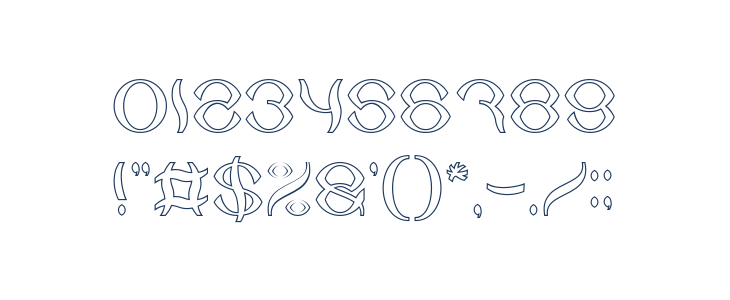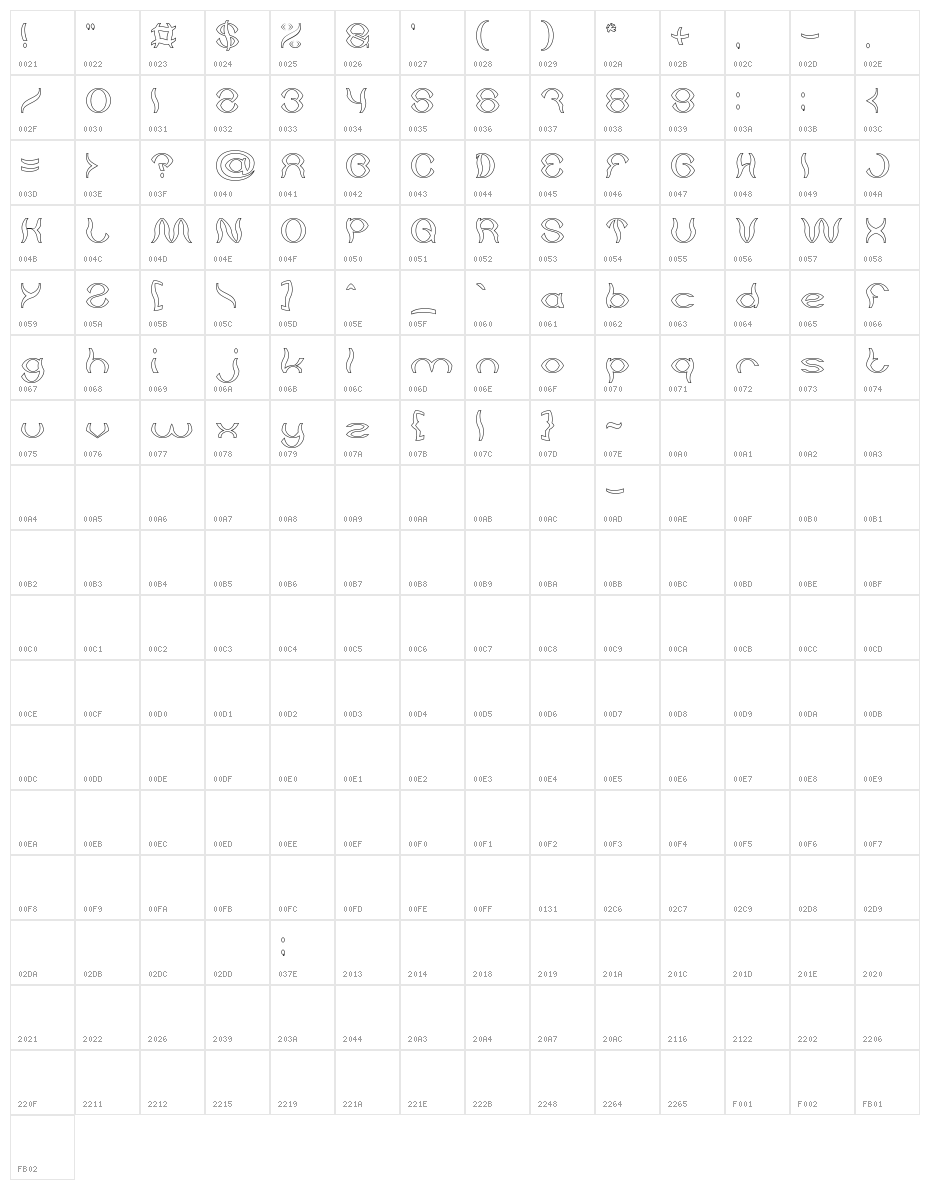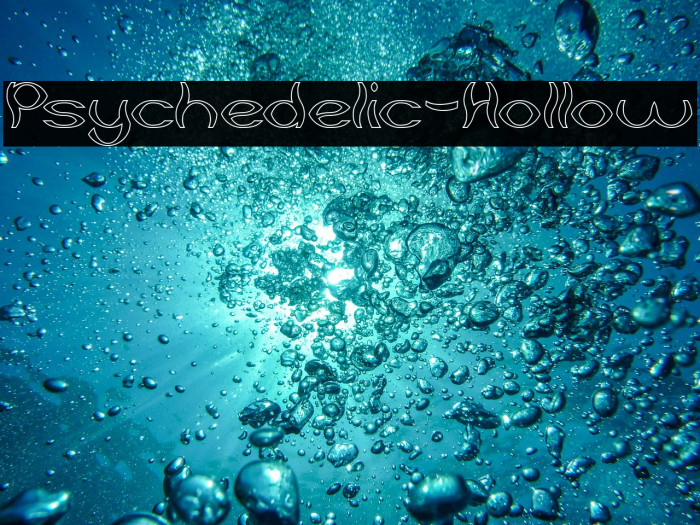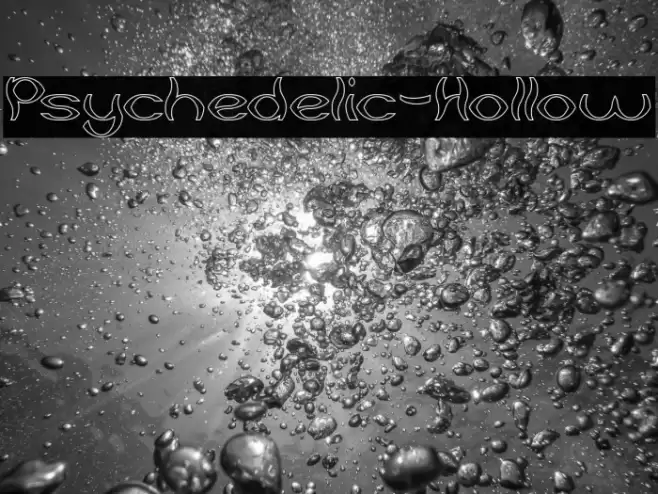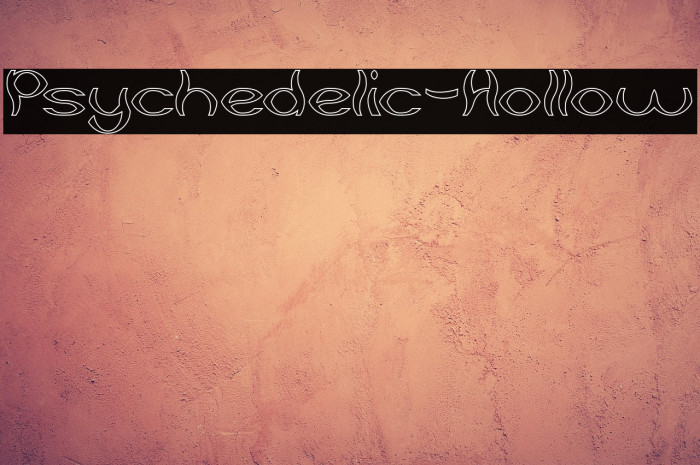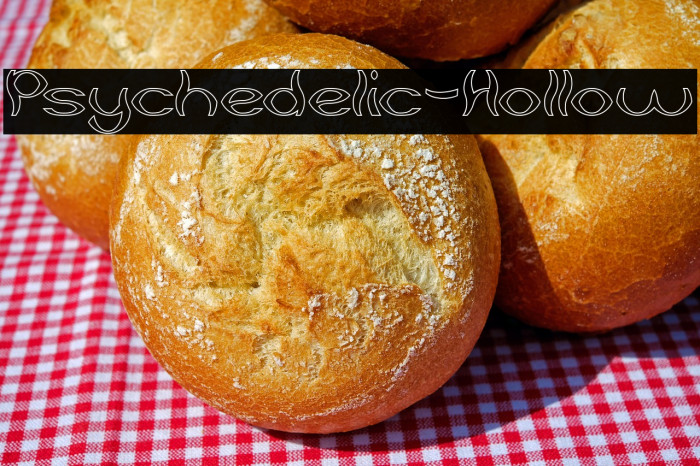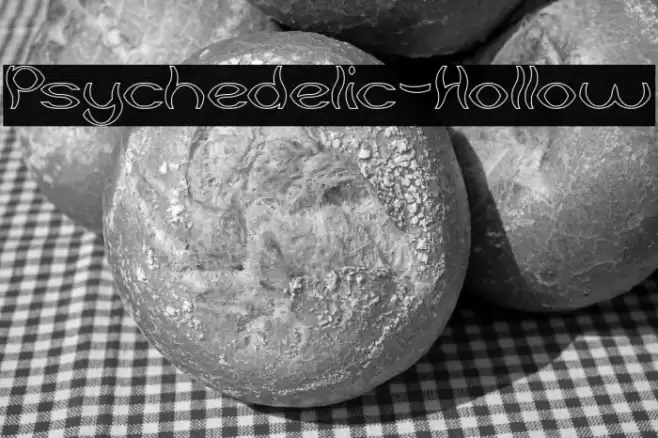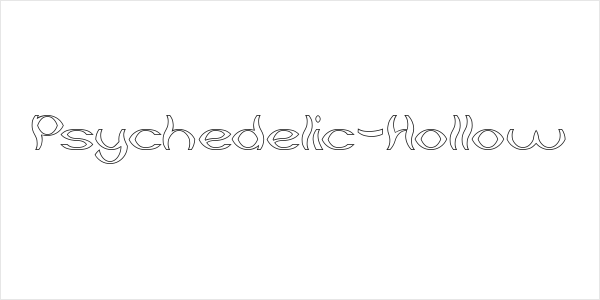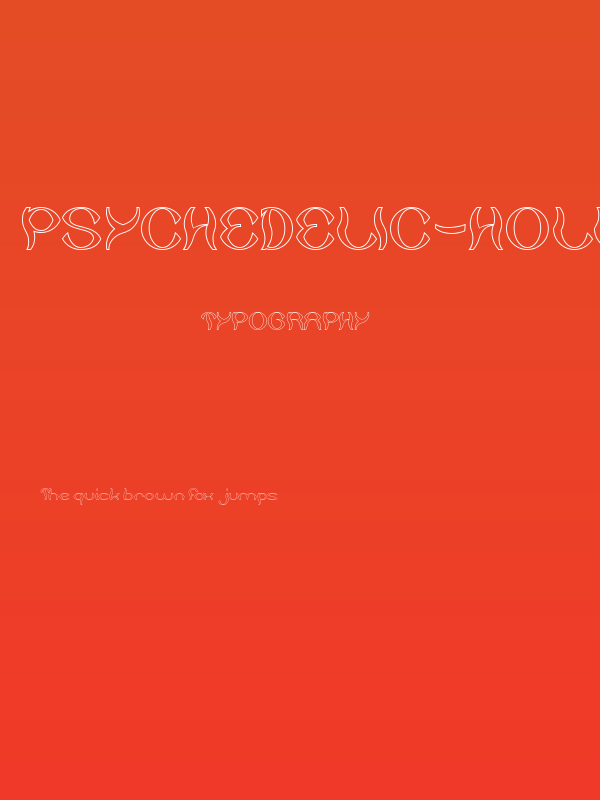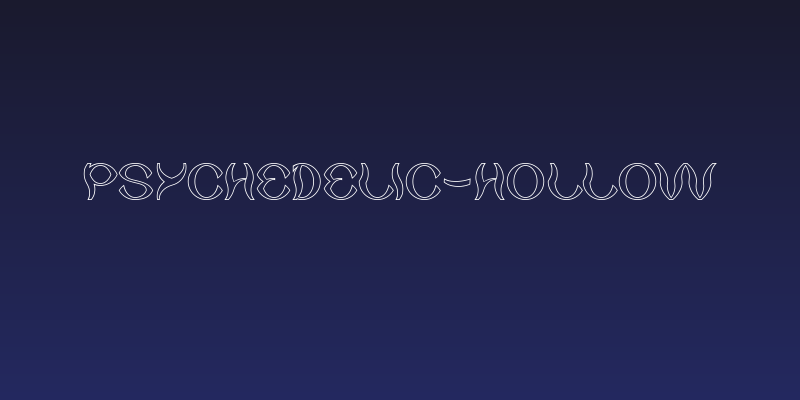
Psychedelic-Hollow Font
Psychedelic-Hollow Description
This font features a unique, hollow design with a psychedelic flair. The characters are outlined with a consistent stroke width, creating an open and airy appearance. The style is reminiscent of the 1960s and 70s psychedelic art, with flowing curves and a sense of movement. The uppercase and lowercase letters maintain a cohesive look, while the numbers and special characters complement the overall aesthetic. This font is ideal for projects that require a retro or artistic touch, offering a distinct and eye-catching appearance.
| Overall Style | Psychedelic, Retro |
| Proposed Projects | Ideal for album covers, posters, event flyers, and branding that seeks a retro or artistic aesthetic. |